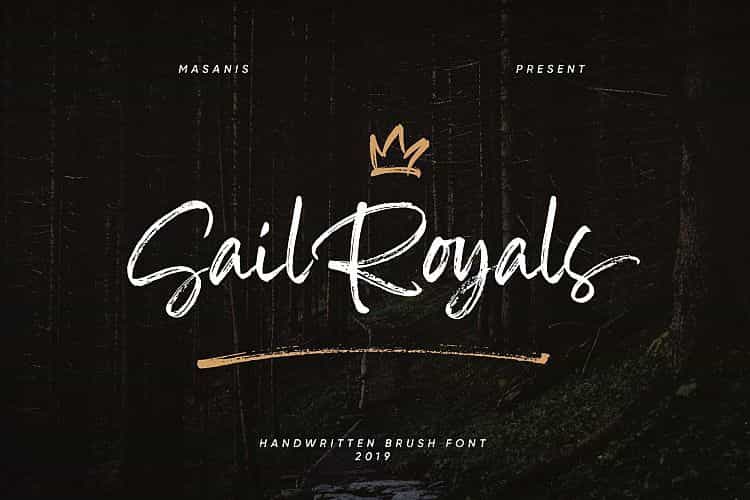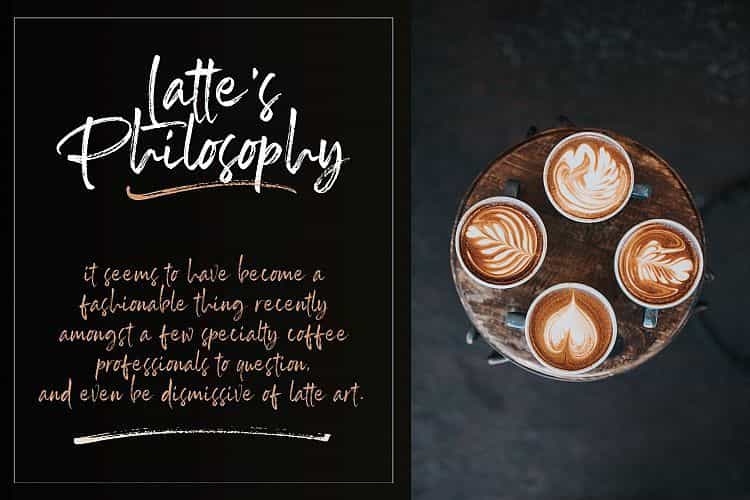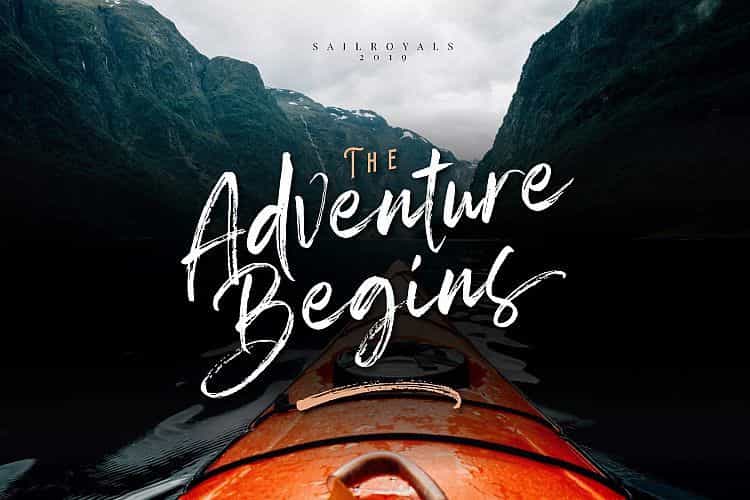
Discover Sail Royals Brush Font, part of the Brush collection—a versatile and unique font perfect for adding a personal touch to your projects. Download it for free and enjoy crafting designs with style, from invitations to social media posts. This font is available exclusively for personal use, giving you the freedom to create without limits. Unlock your creativity with Sail Royals Brush Font today!
Introducing Sail Royals Font. Handwritten font with a personal charm. every letter made with pen brushpen with real pen on paper, and then ink in the pen. scanned and crafted vectorized very carefully to add a strong characteristic to each letter. With fast strokes and style marks, SailRoyals is perfect for design projects, T-shirts, homeware designs, product packaging – or simply as a stylish text overlay to any background image.